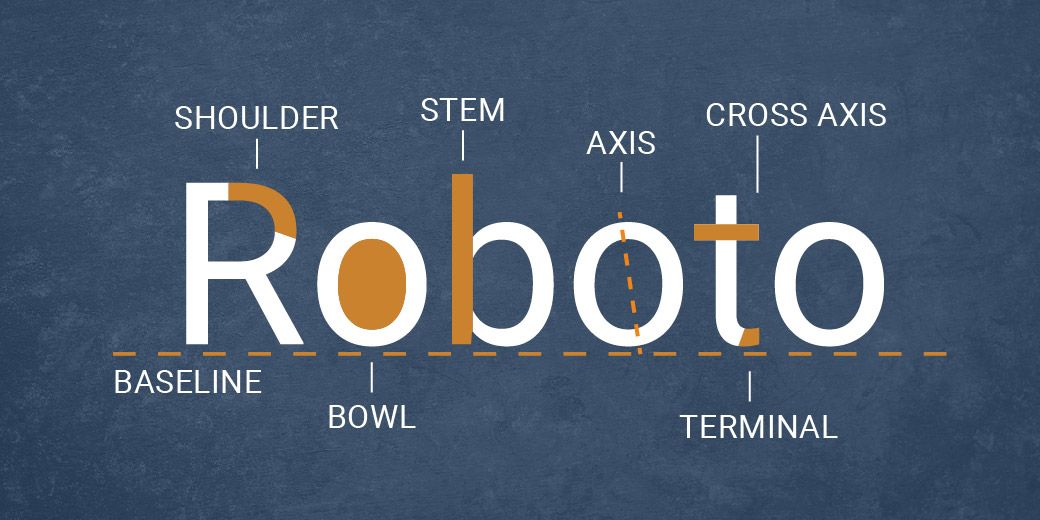
Roboto Google Font Pairing
Font pairings can resemble unraveling a complex puzzle, each selection similar to finding the perfect piece to complement your chosen font. Continuing our Font Pairing Saga with the Roboto font family, we at Stimulus are once again answering the question:
“What font goes best with ____________?"
Choosing just the right font to convey a message beyond just the words can be a daunting task. For this pairing post, we are choosing to take a closer look at Roboto, a modern, rounded sans-serif. We'll delve into its usage as both a header and body text, pondering whether Roboto truly earns its nickname as a "Franken-font."
HISTORY
Roboto, crafted by Christian Robertson, a designer at Google, debuted in 2011 as a system font for Android. Upon its initial release, it faced some backlash for being too similar to other fonts such as Helvetica. Several designers even referred to it as “Fraken-font”. However, Roboto underwent some changes in 2014 to address the backlash. The font became more rounded and friendly after the edits were made, differentiating it from other sans-serif fonts.
Characteristics
Roboto categorized as a sans-serif, which means it does not include serifs on its letterforms. A serif is a small line or stroke attached to the upper and lower ends of the strokes of a letterform. Roboto is both geometric and rounded, giving enough rigidity to provide structure, but allowing the natural curves to convey a sense of friendliness. This font strikes a balance between rigidity and softness, making it a great choice for digital platforms.
Font Pairing 1: Raleway
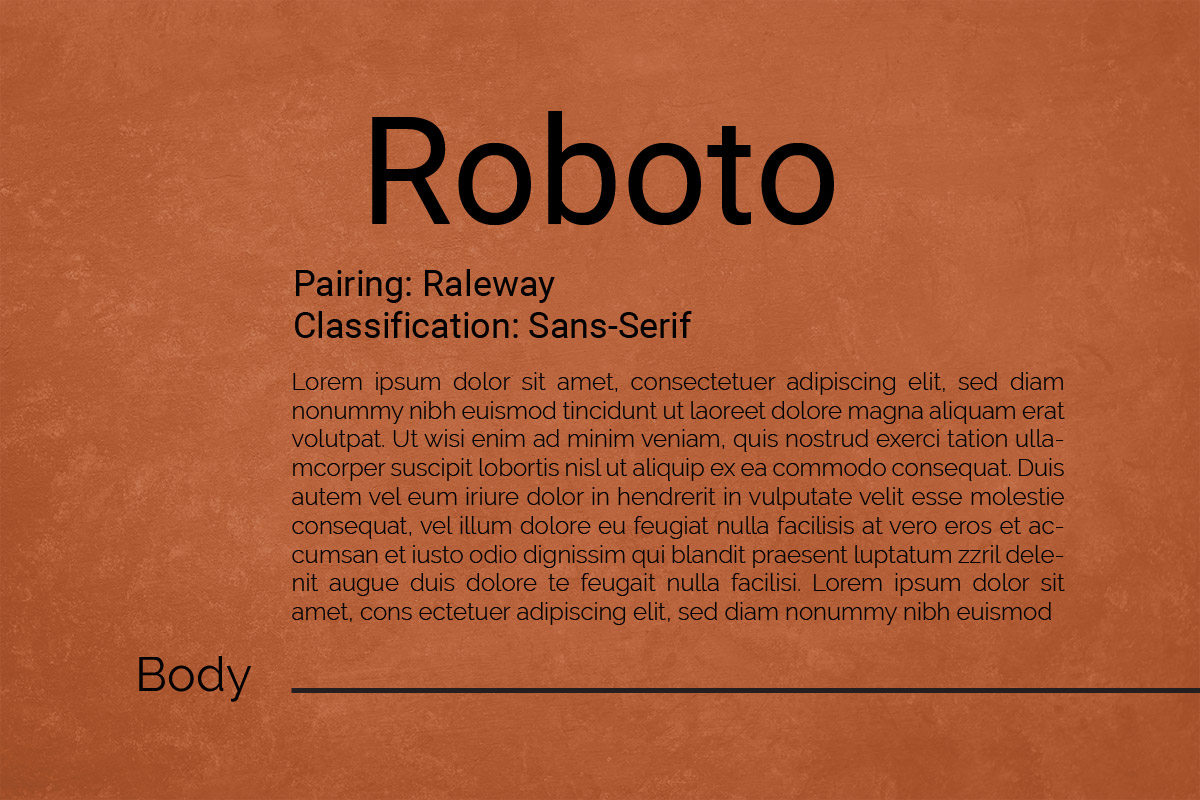
Classification: Sans-serif
Use: Body Text
Raleway is a great go-to for a modern sans-serif. While Roboto also belongs to the sans-serif family, Raleway provides contrast with its larger width. Roboto appears condensed and narrow, whereas Raleway's wider profile and shorter ascenders create a spacious text layout, enhancing readability with its rounded forms.
Font Pairing 2: DM Serif display
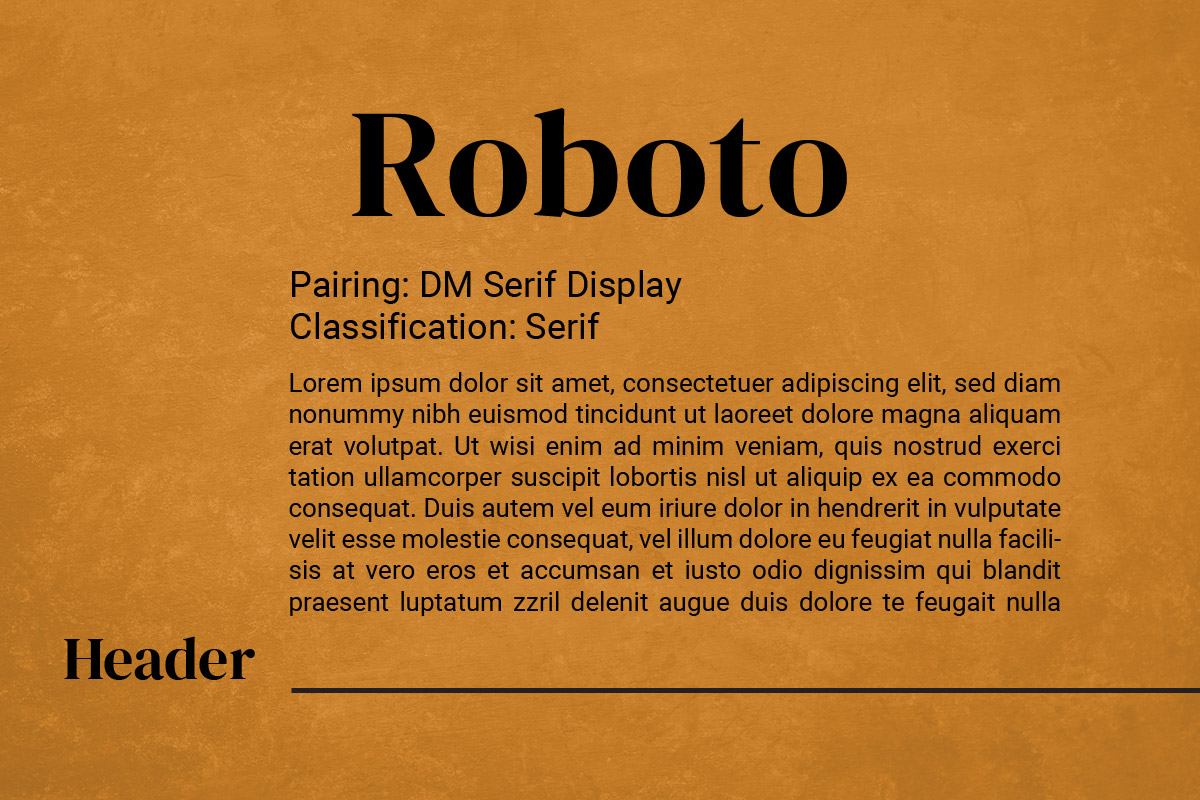
Classification: Serif
Use: Header
DM Serif Display is a high-contrast serif font that transitions thick to thin for a bold headline. Paired with Roboto as a body text, DM Serif Display is an effective serif header that provides contrast against a mono-weight sans-serif such as Roboto. The geometric, sharp edges and straight lines also provide a nice juxtaposition against the rounded, smooth appearance of Roboto.
Font Pairing 3: Bebas Neue
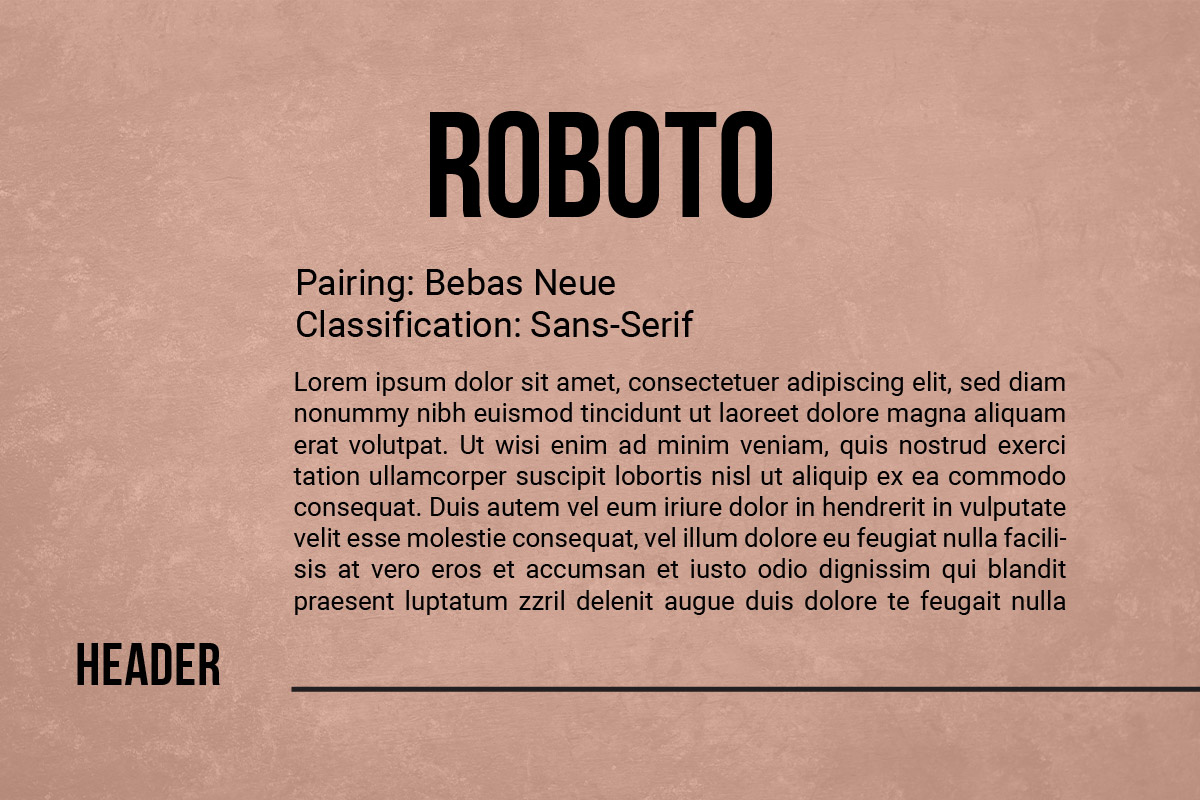
Classification: Sans-Serif
Use: Header
Bebas Neue is a great eye-catching headline font because of its heavy weight and all-caps alphabet. This font compliments Roboto because of the similarity in condensed spacing. This pairing is great for designs that require a vertical or thin layout and direct the eye vertically. It is important to consider what a font is designed for when assigning it a use such as headings, subheadings, and body text. Bebas Neue was designed as a display font, making it a great choice for a header with a more simplistic font as body text.
Font Pairing 4: open Sans
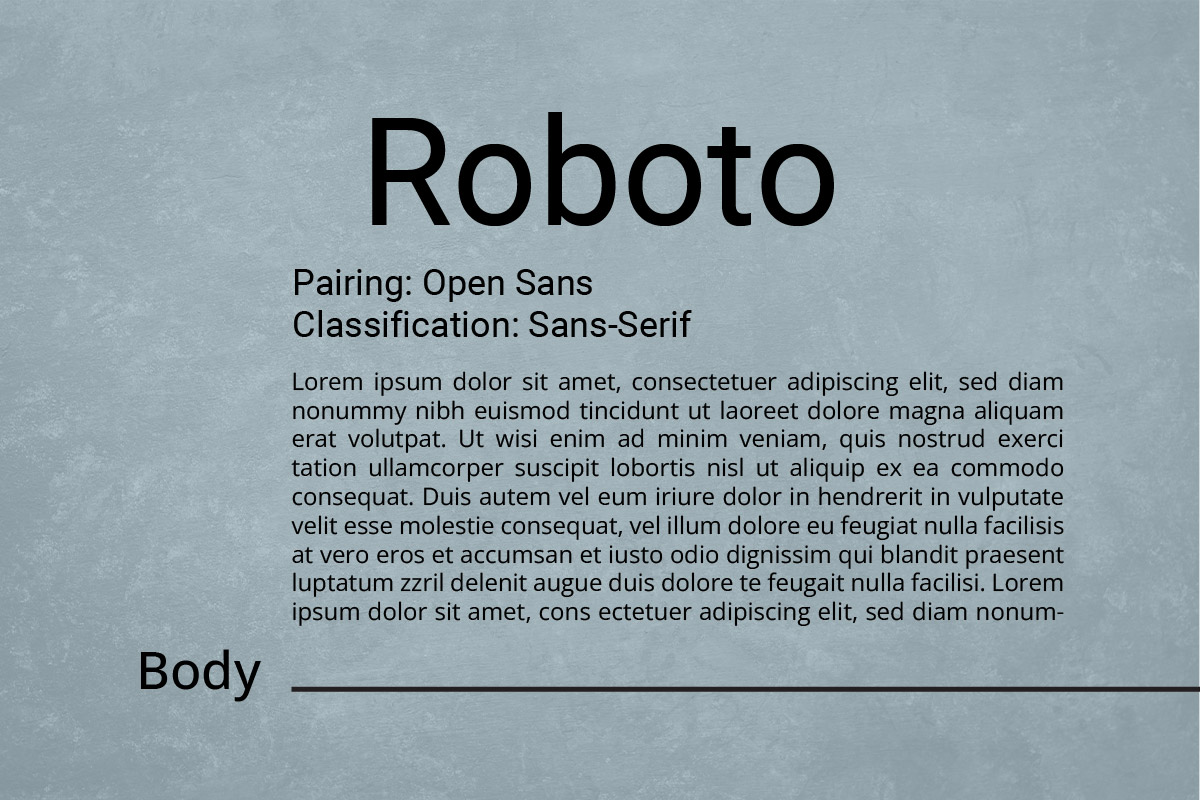
Classification: Sans-Serif
Use: Body Text
Choosing two fonts that are very similar can be a difficult task. There must be enough differentiation between the two fonts to provide contrast and allow the viewer to make a distinction between the two. Open Sans shares rounded forms with Roboto but features more defined corners, lending greater structure ideal for body text applications.